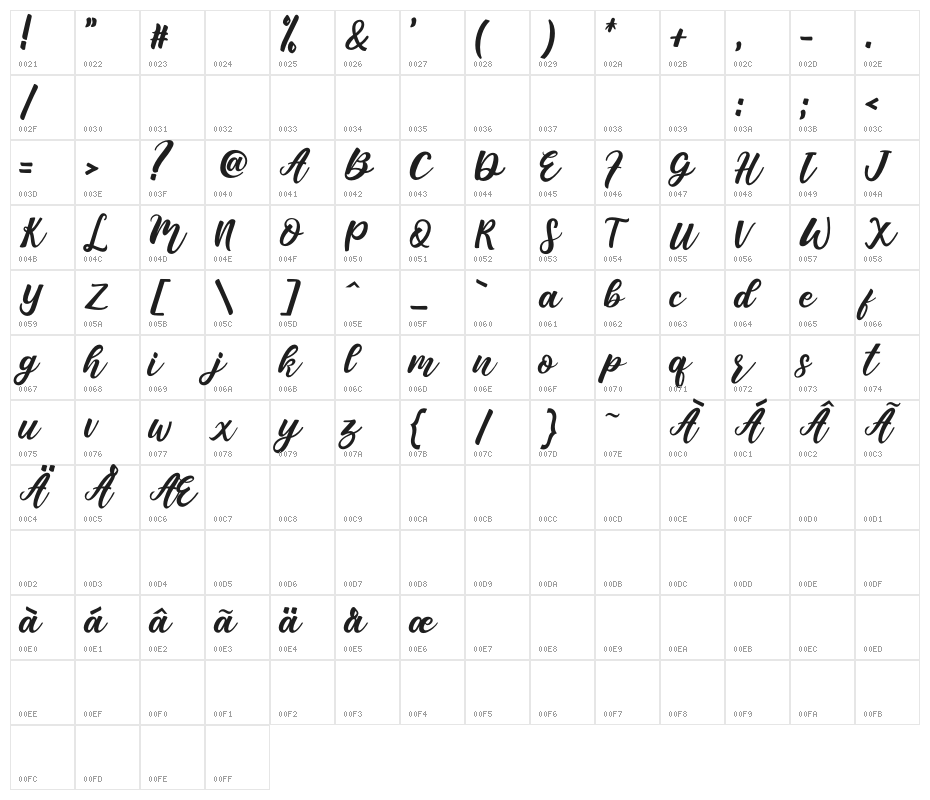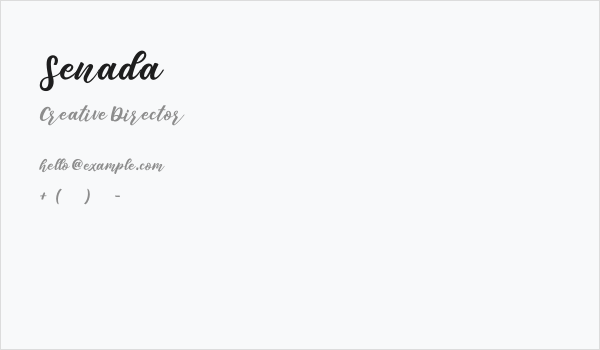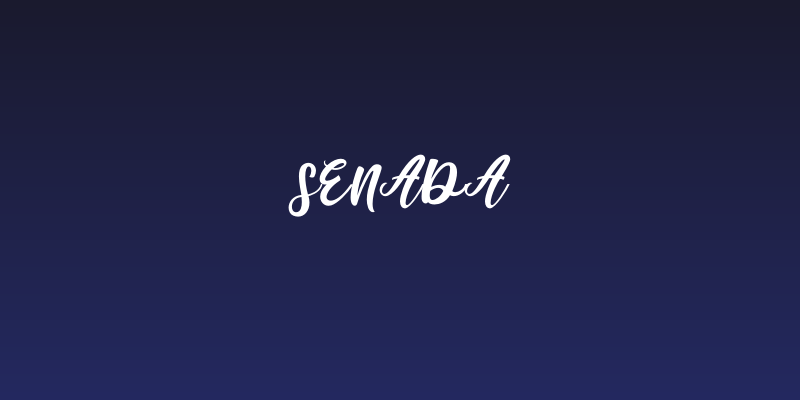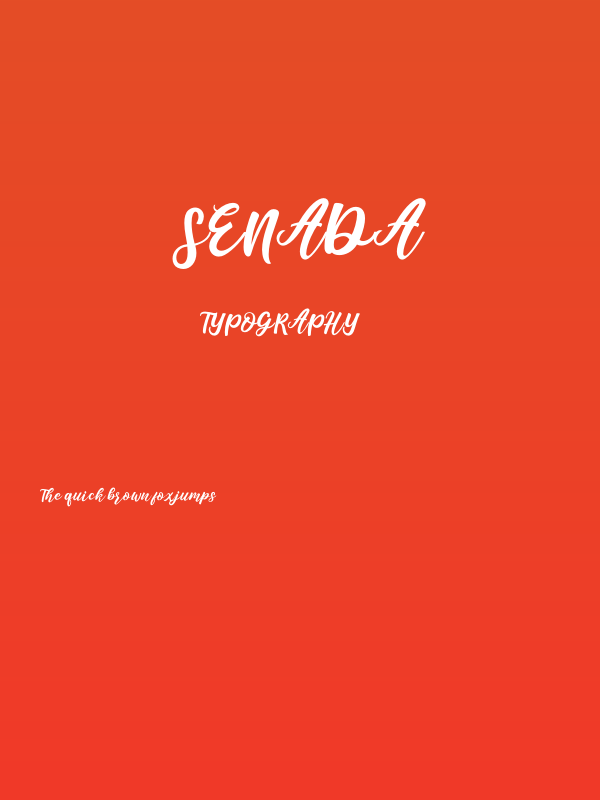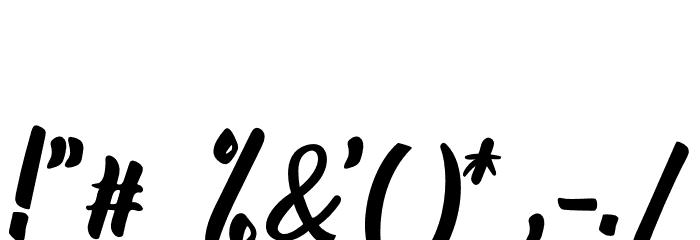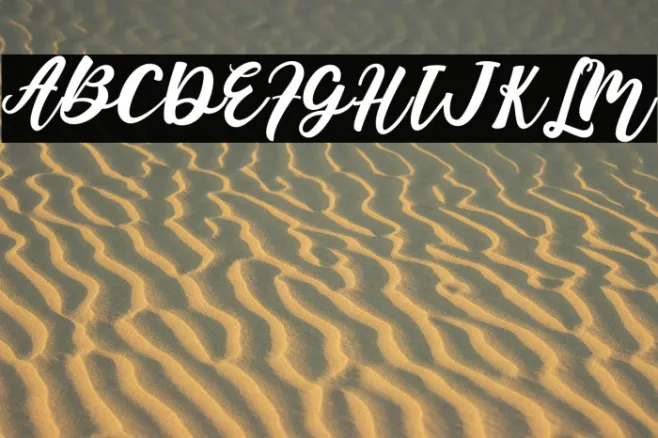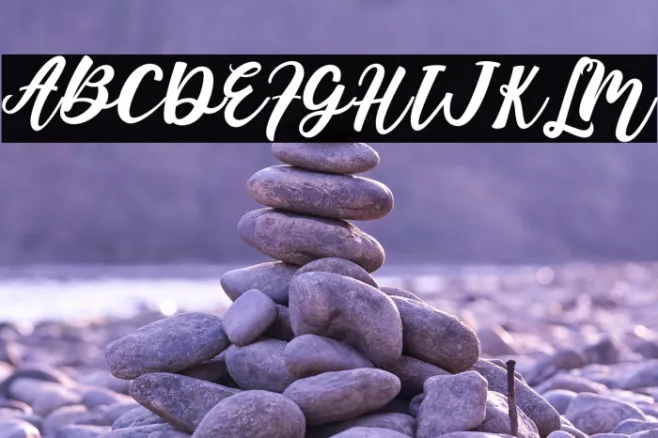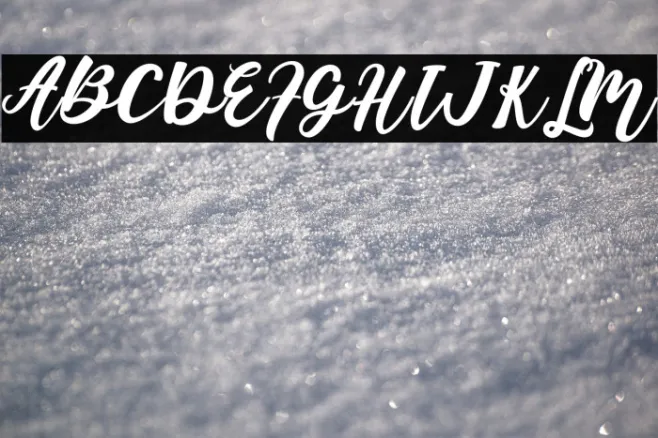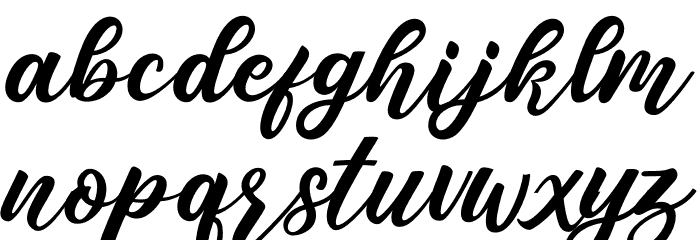
Senada Font
Senada Description
This font features a bold and flowing script style, characterized by its smooth, connected strokes and elegant curves. The uppercase letters exhibit a graceful flair, with some letters extending slightly beyond the baseline, adding a dynamic and lively touch. The lowercase letters maintain a consistent flow, enhancing readability while preserving the font's artistic nature. The numerals and special characters are designed to complement the overall script style, ensuring a cohesive look across all text. This font's bold weight and medium contrast make it stand out, suitable for various creative applications.
| Proposed Projects | Ideal for wedding invitations, branding, logo design, and social media graphics. |